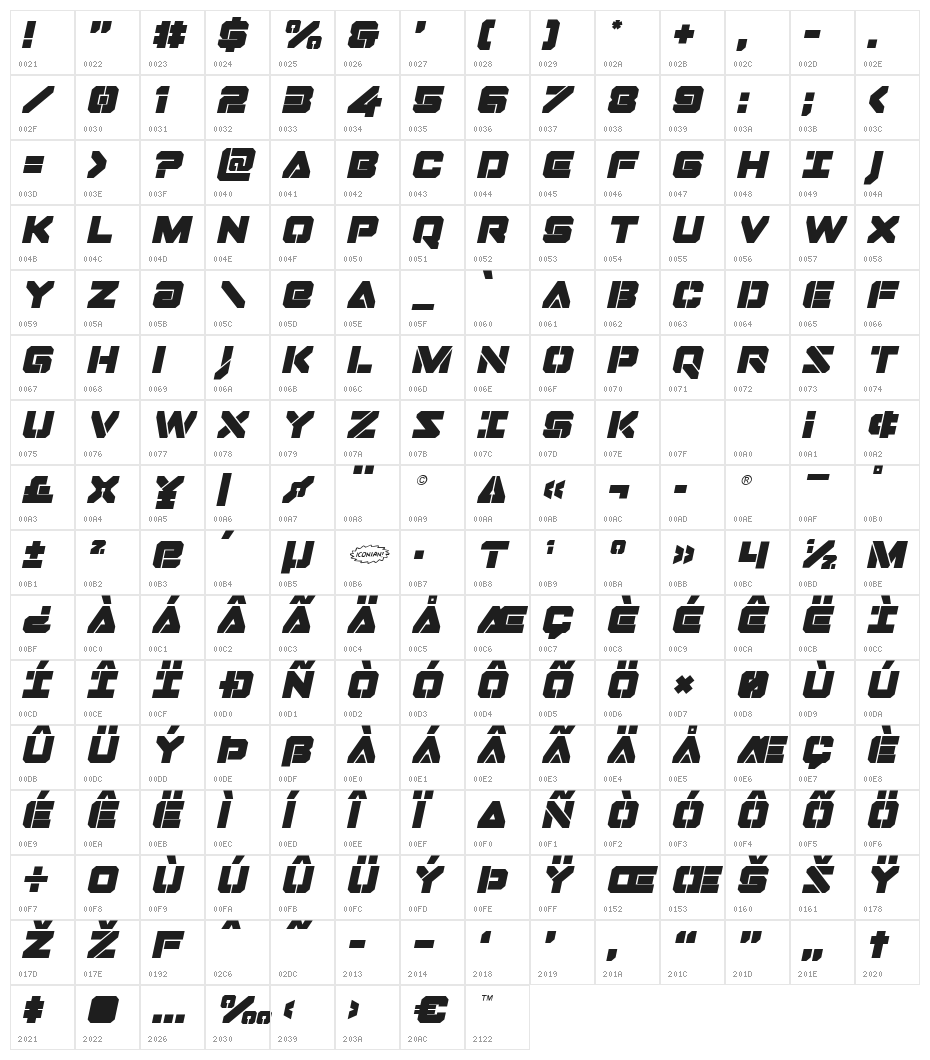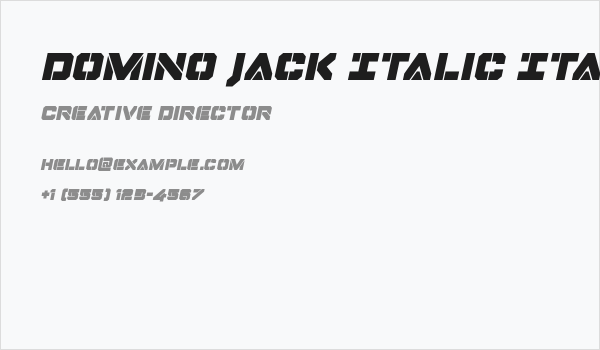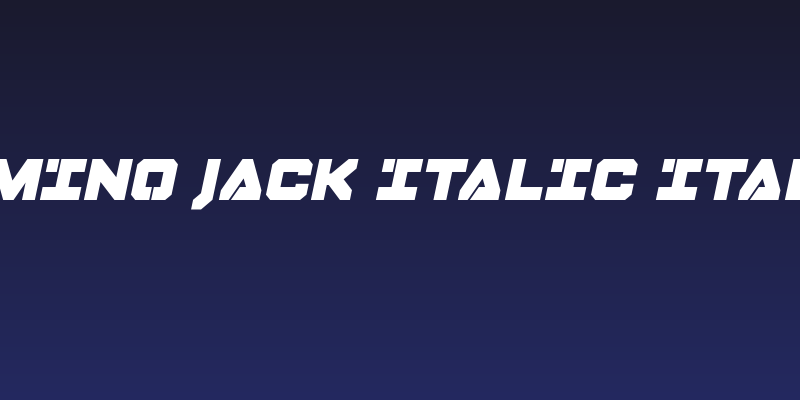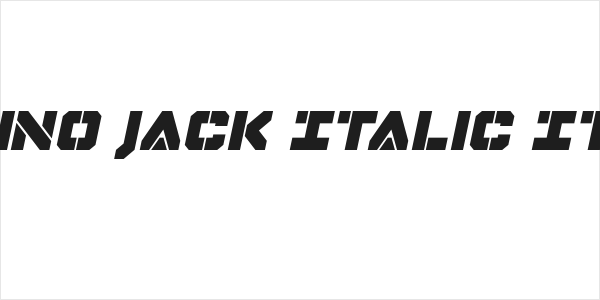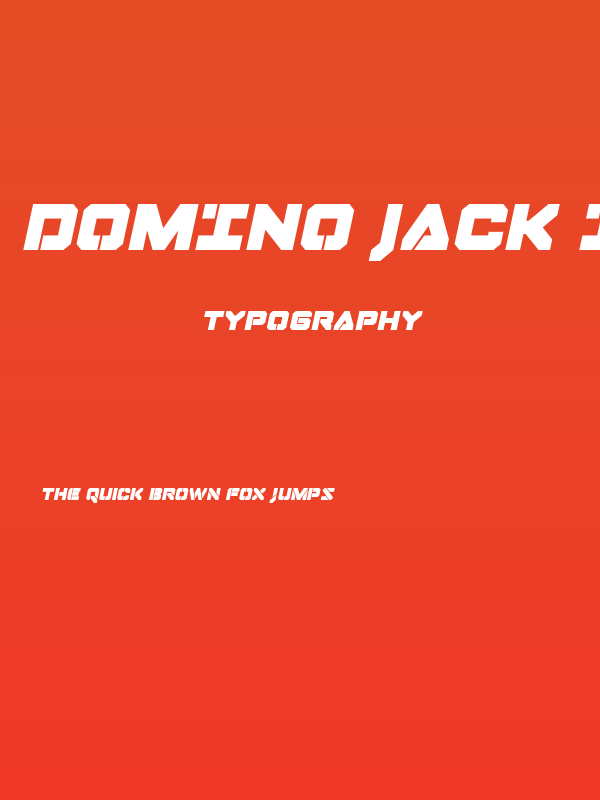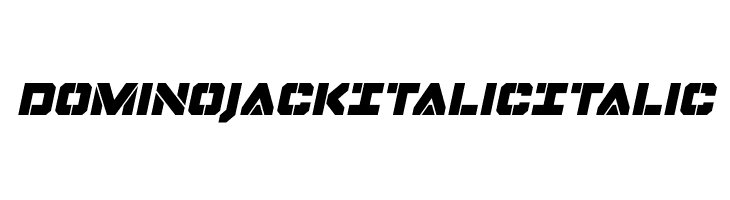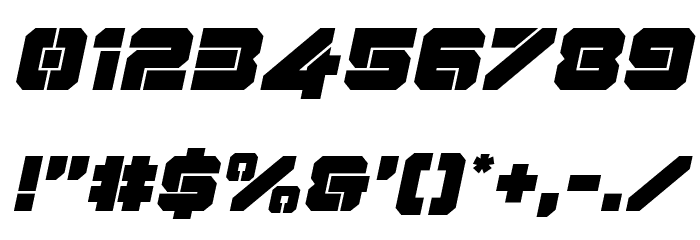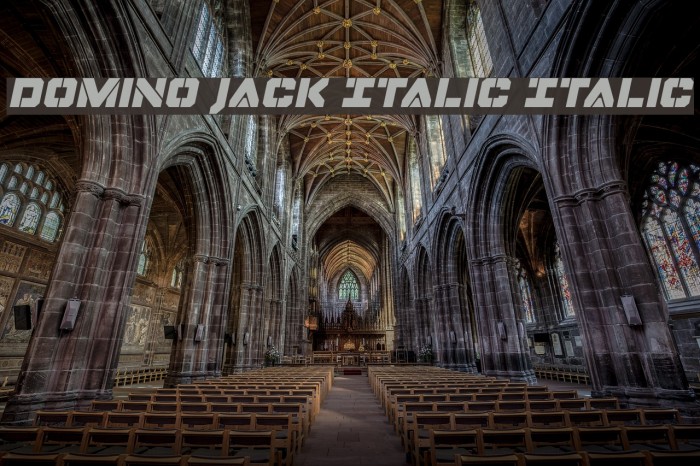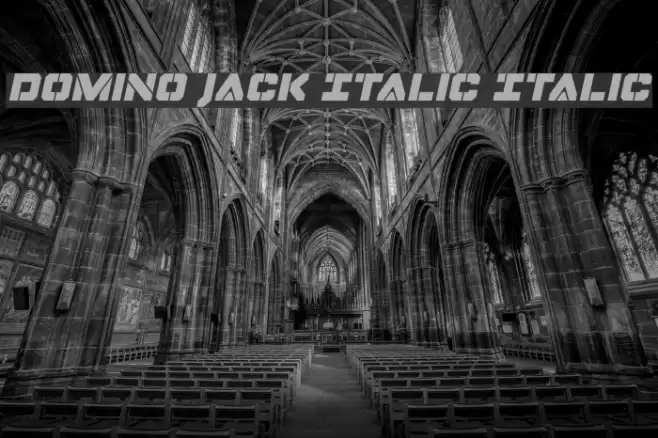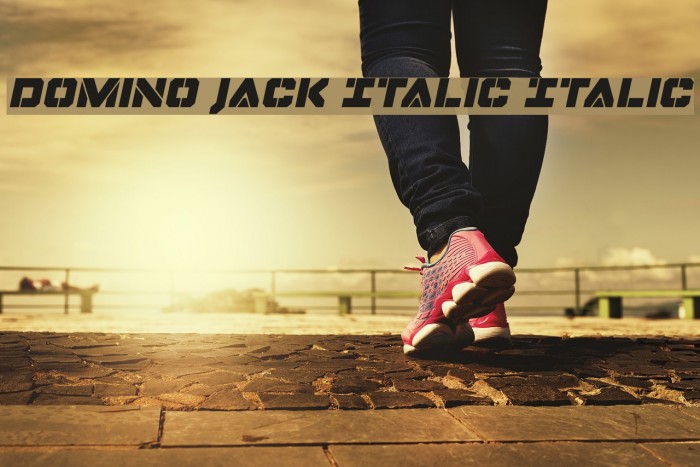
Domino Jack Italic Italic Font
Domino Jack Italic Italic Description
This font features a bold and dynamic style with a strong italic slant, giving it a sense of motion and energy. The characters are constructed with thick, angular strokes, creating a geometric and futuristic appearance. The uppercase and lowercase letters maintain a consistent design, with sharp edges and a blocky structure. Numbers and special characters follow the same bold and angular style, ensuring uniformity across all glyphs. The font's design is highly distinctive, making it suitable for attention-grabbing headlines and modern, edgy branding projects.
| Proposed Projects | Ideal for sports branding, video game titles, sci-fi themed posters, and dynamic logo designs. |